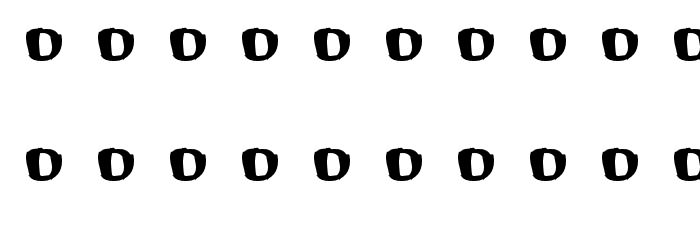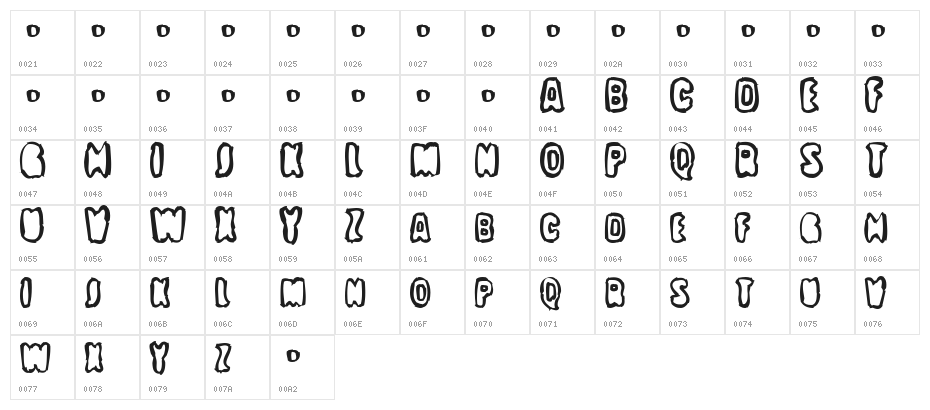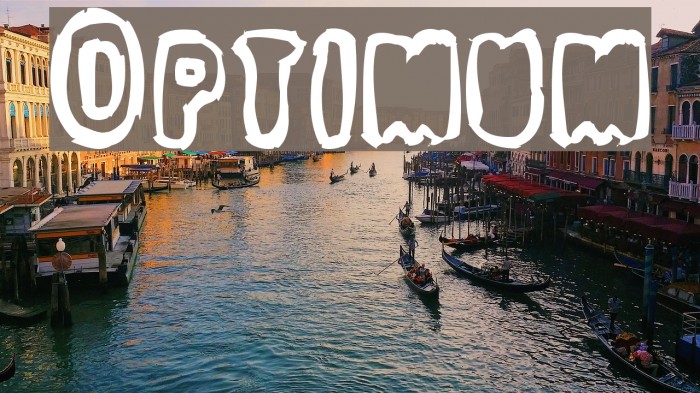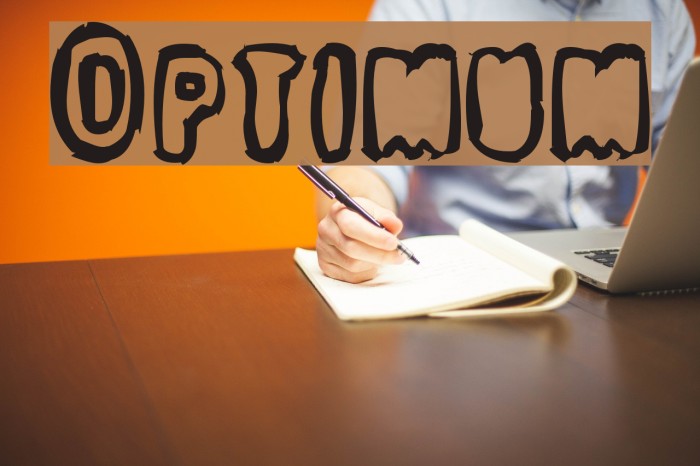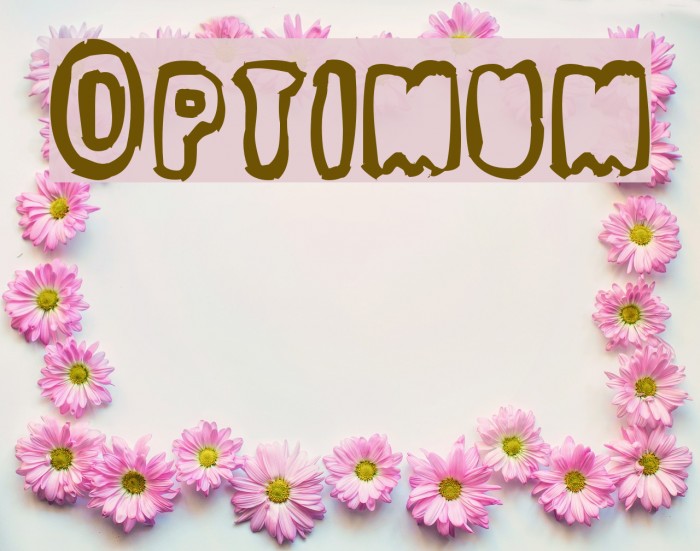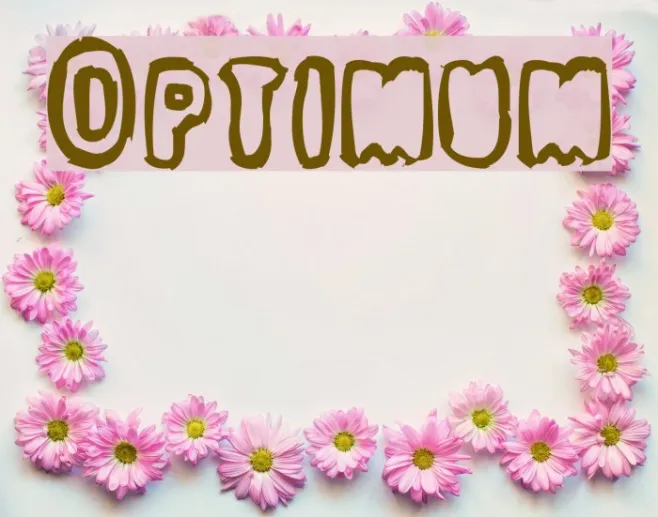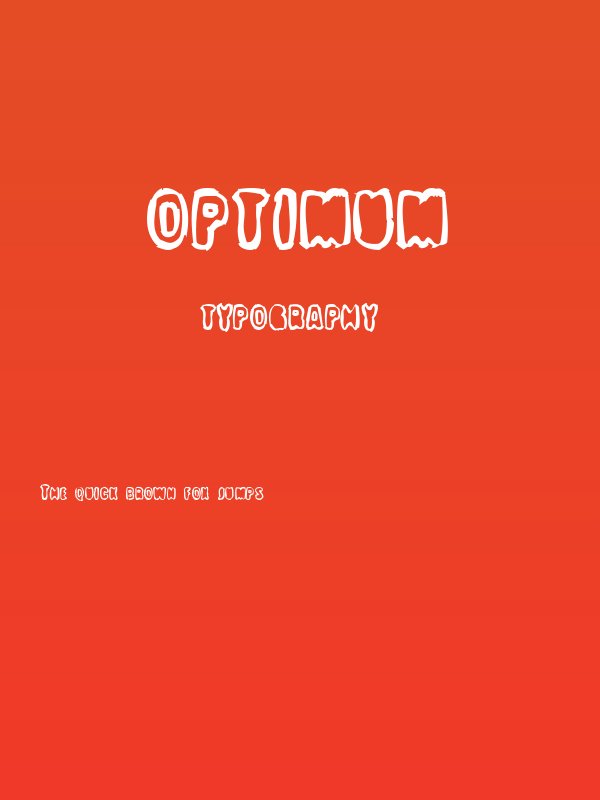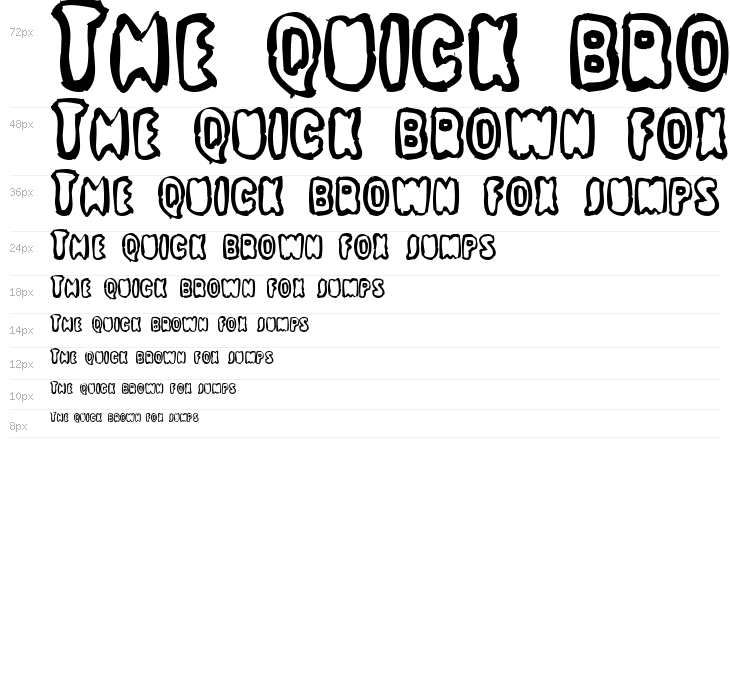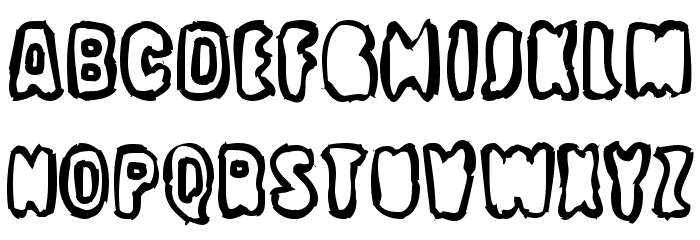
Optimum Font
Optimum Description
This font features a bold, playful style with thick, uneven strokes that give it a hand-drawn appearance. The characters are outlined with a heavy black border, creating a striking contrast against the white interior. The irregular shapes and whimsical design make it stand out, adding a sense of fun and creativity. The uppercase letters are consistent in height, while the lowercase letters maintain a similar playful aesthetic. The numbers and special characters follow the same design principles, ensuring a cohesive look across all elements.
| Overall Style | Playful, Creative |
| Proposed Projects | Ideal for children's book covers, playful posters, comic strips, and creative branding projects. |